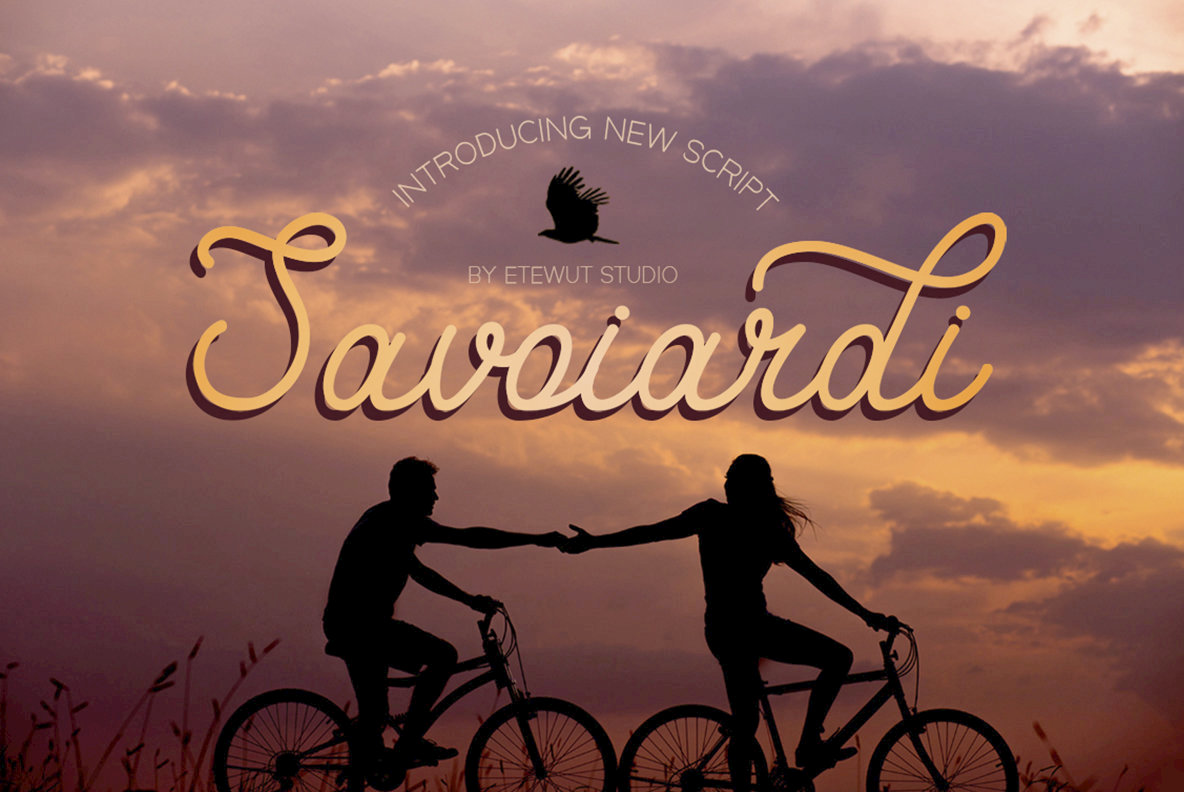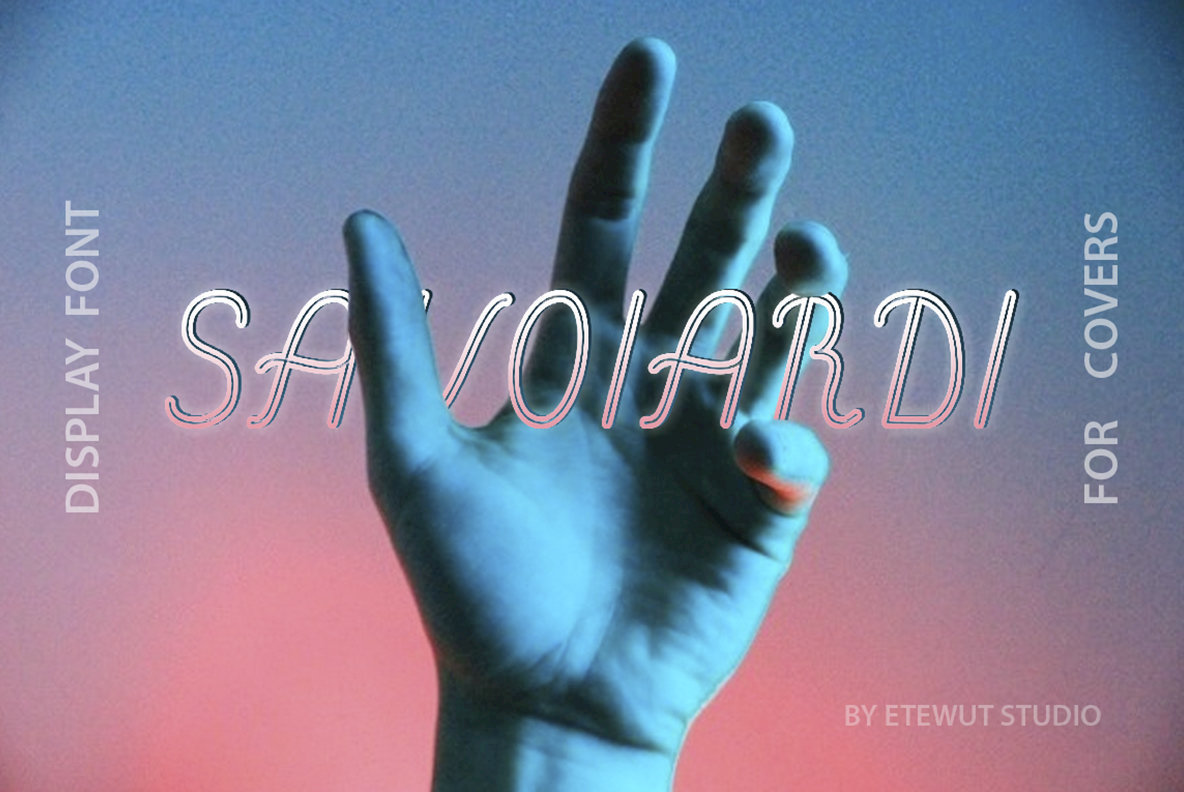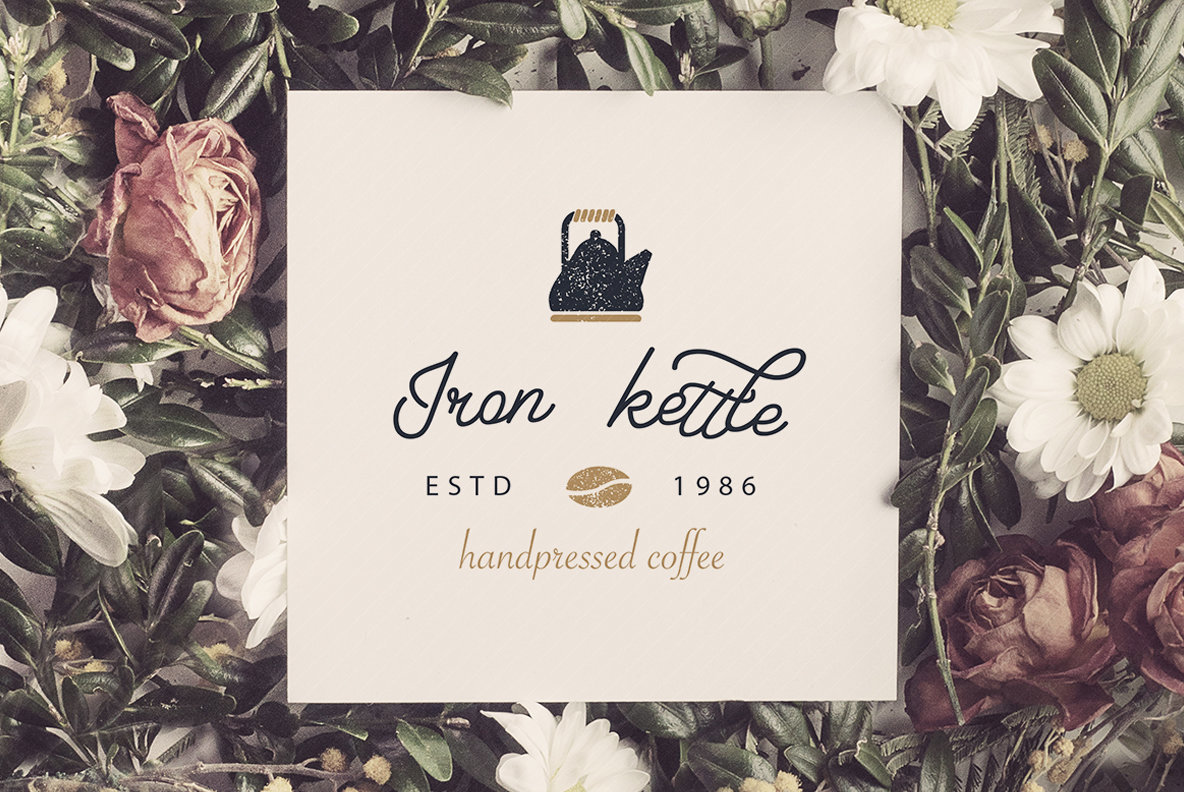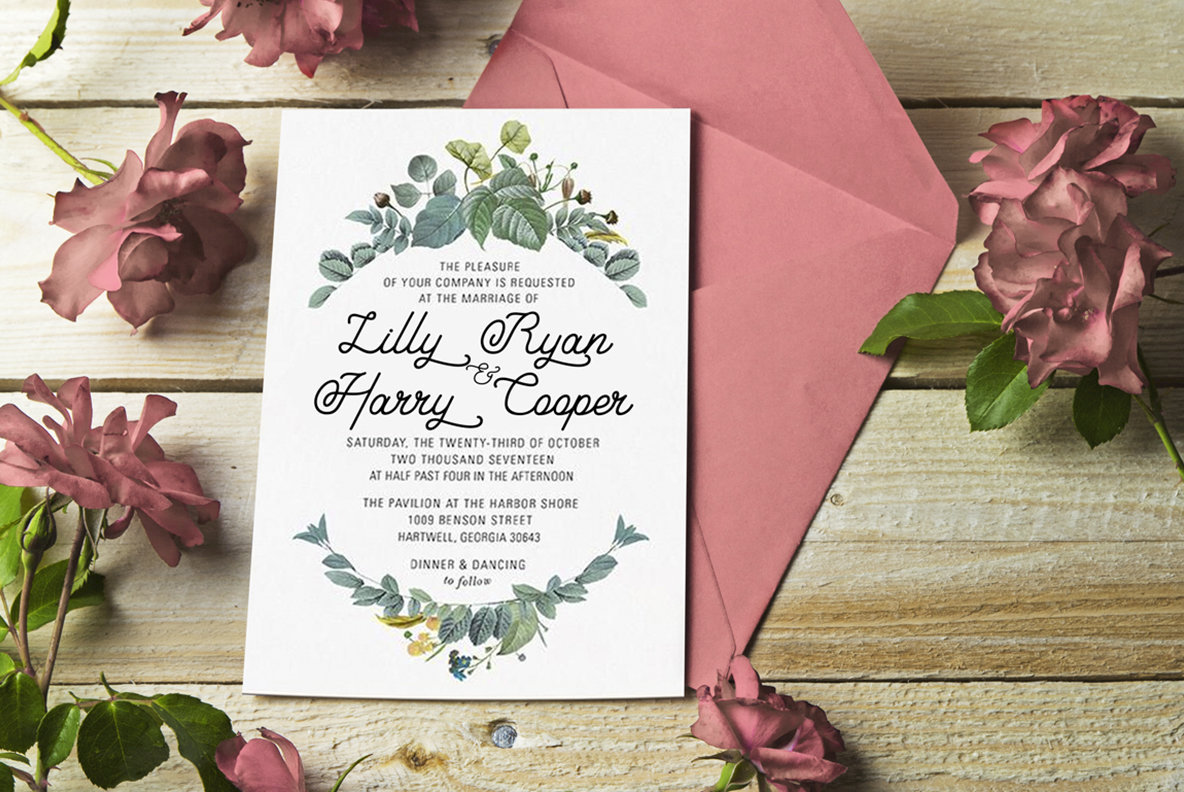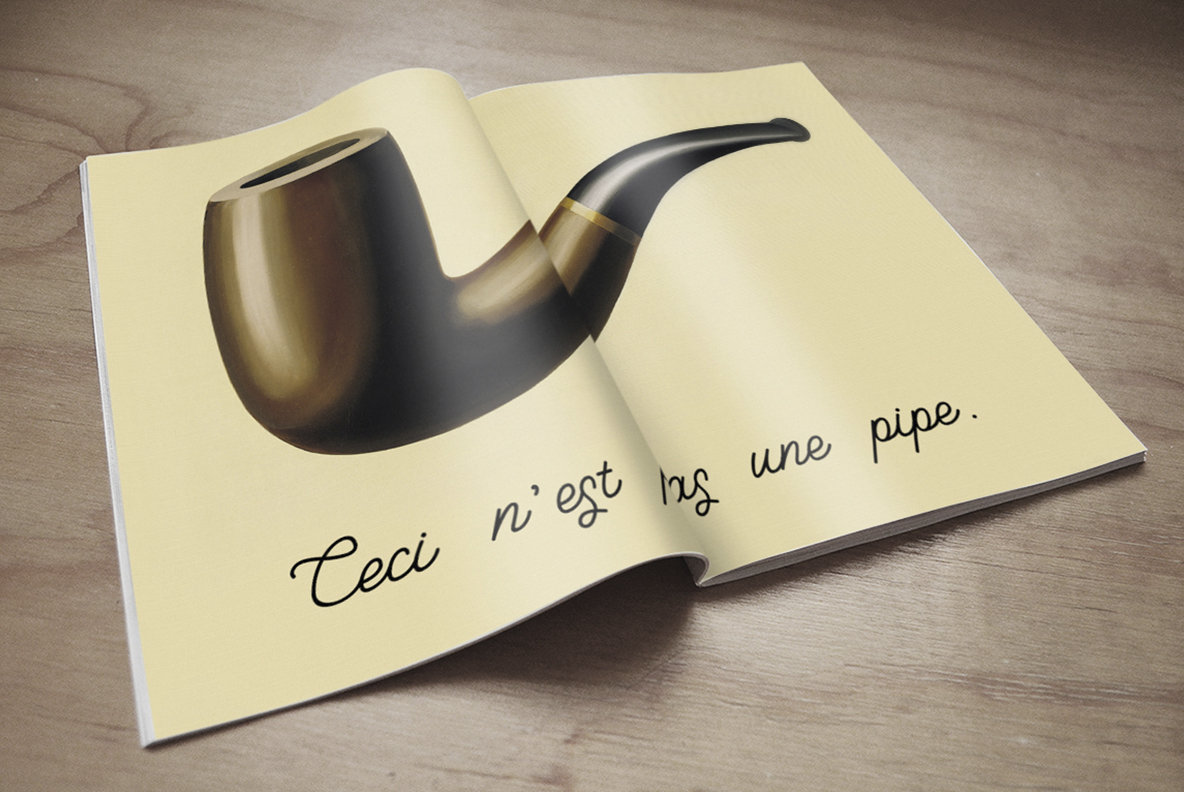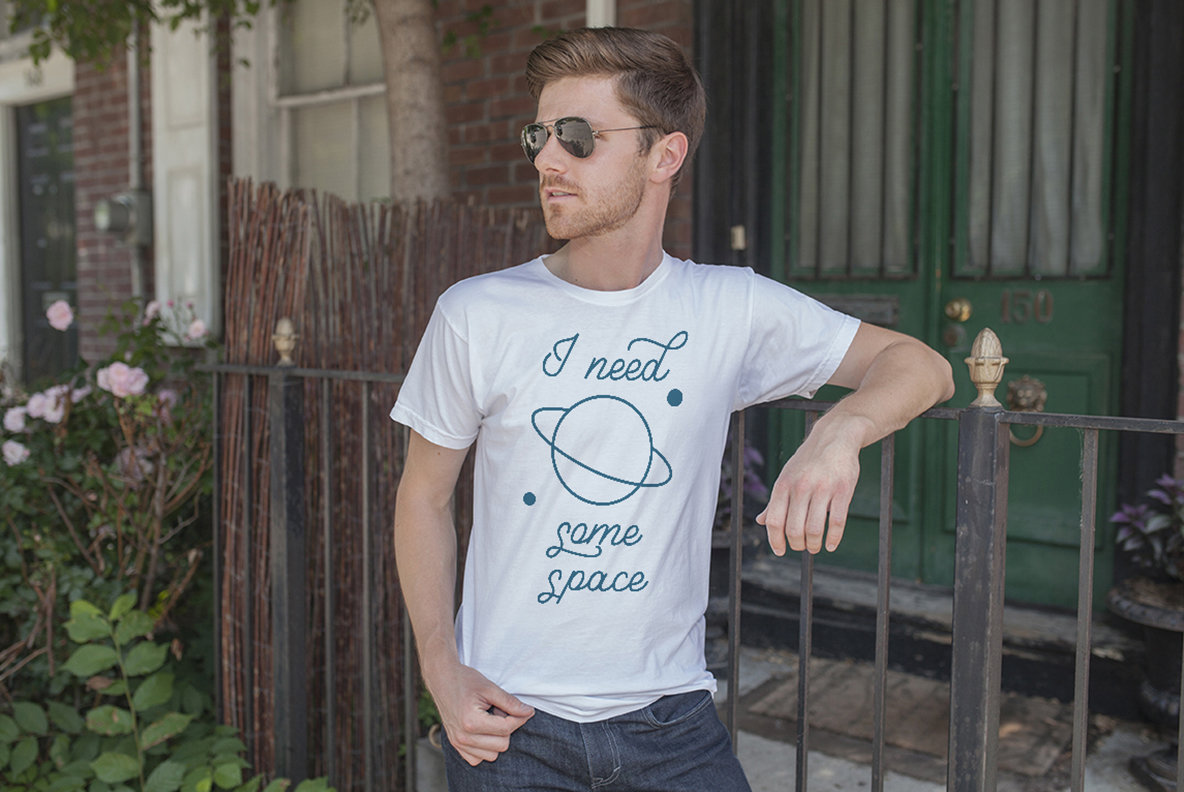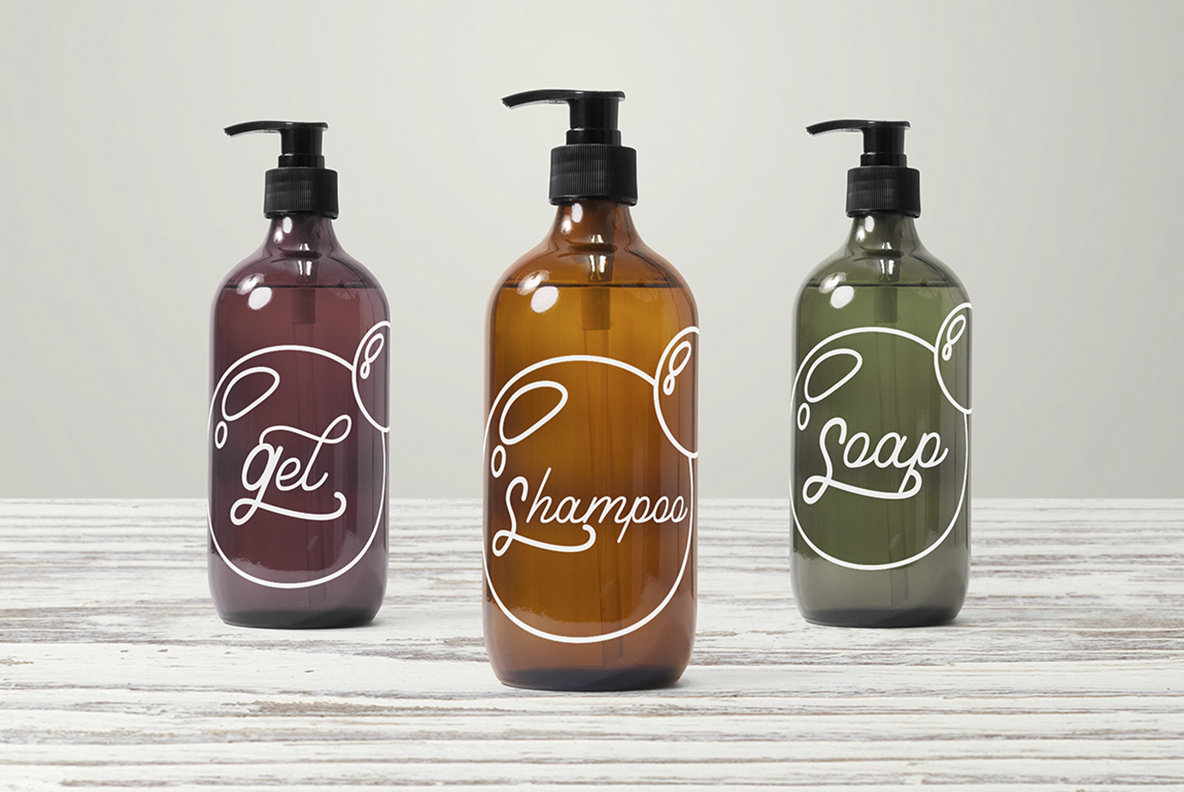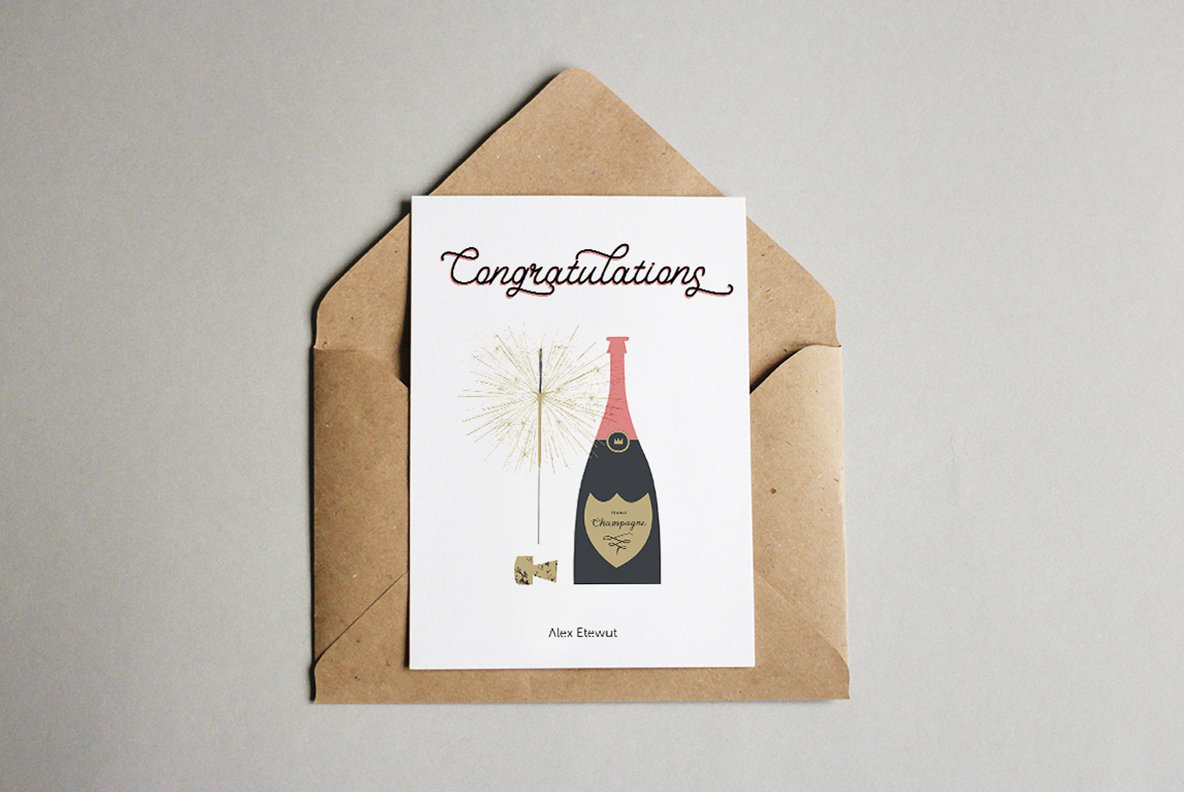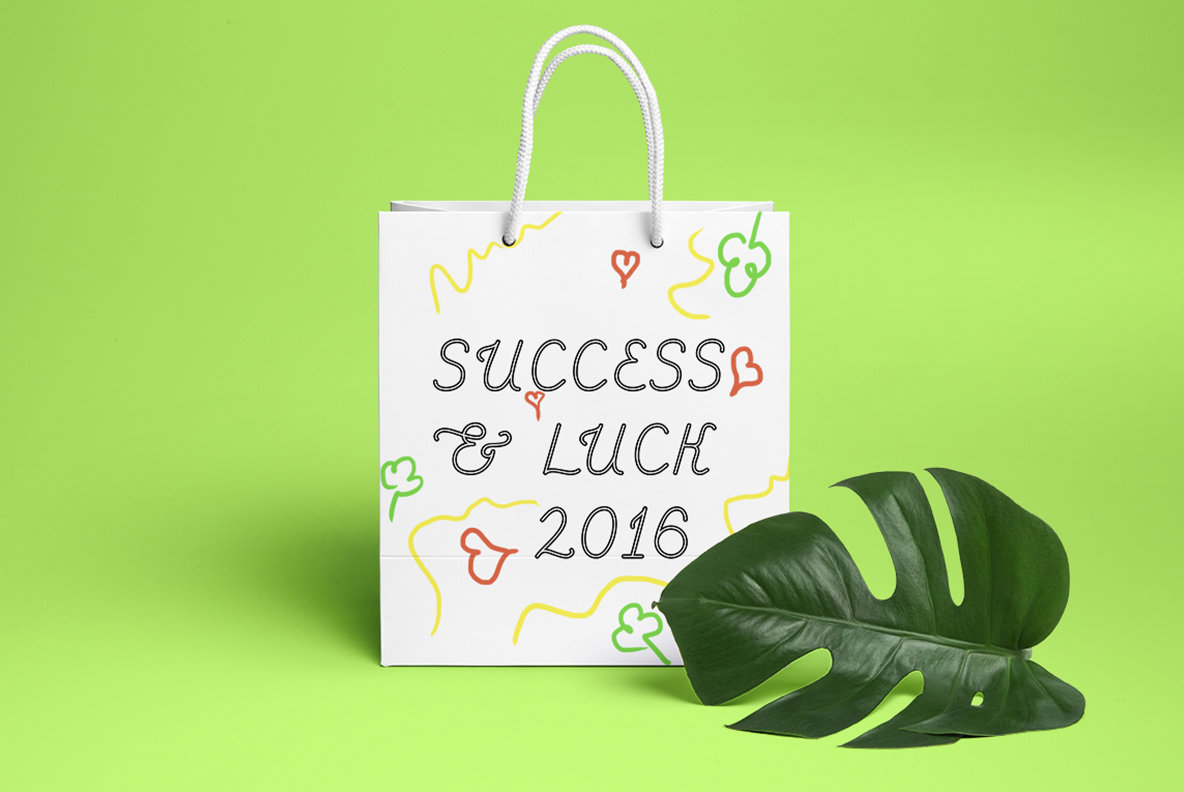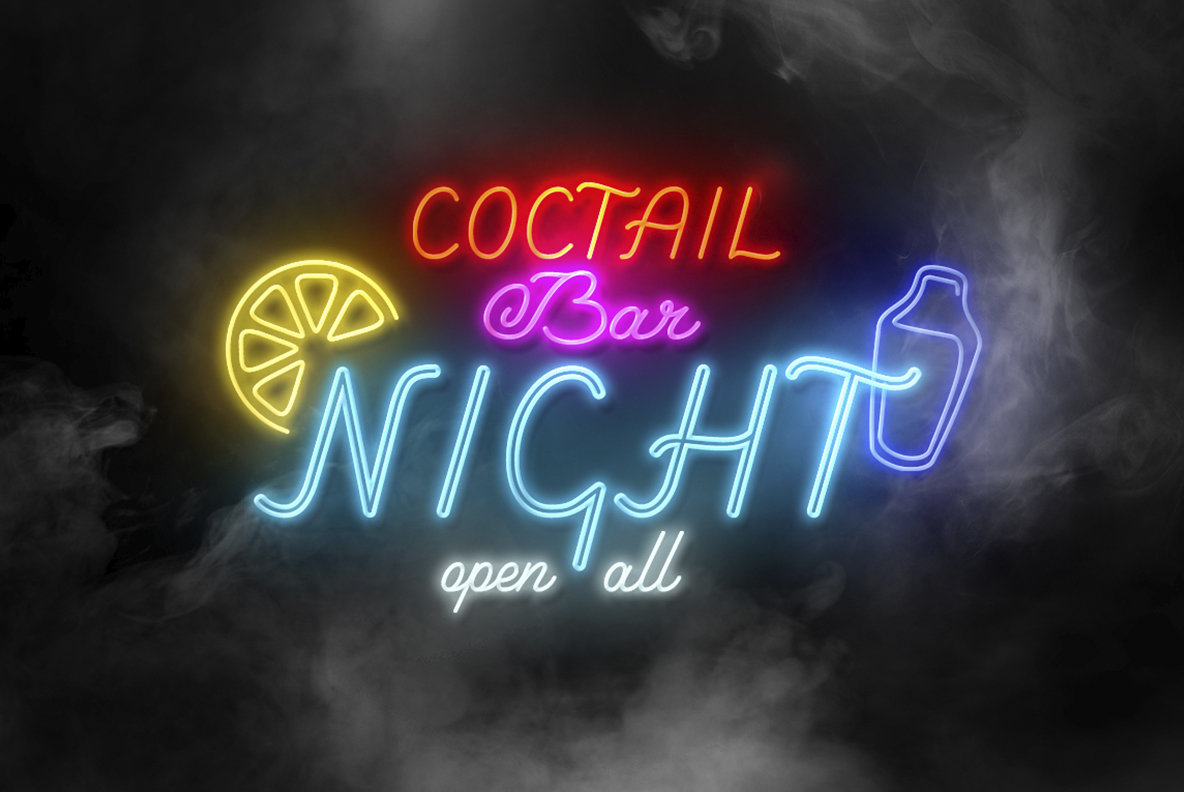
Savoiardi Font
Savoiardi Sans
Savoiardi Display
Savoiardi Script
Savoiardi Shadow
Initially conceived for the opera ‘Ariadne auf Naxos’ as an alternative for subtitles, Savoiardi has grown into a complete typeface family. Its utility has expanded beyond the confines of the opera house to serve a multitude of design needs.Savoiardi: A Versatile Typeface